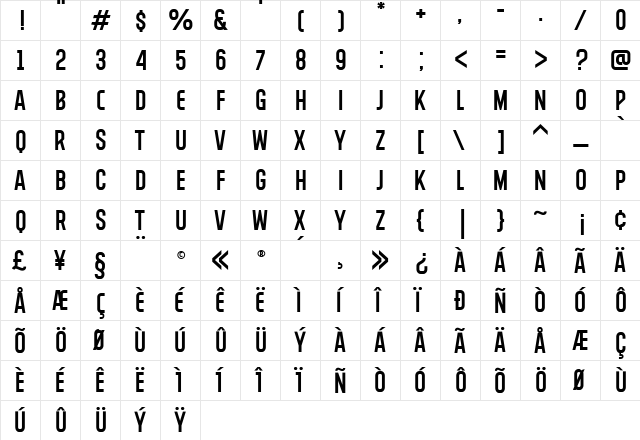
BROOKLINE Condensed
| Foundry | Hendra Pratama |
| Designer | Hendra Pratama |
Design Context for BROOKLINE Typeface
BROOKLINE offers clean, dependable letterforms without strong stylistic allegiance, making it a practical choice for designers who need flexibility. The condensed width makes it efficient for tight spaces without sacrificing legibility.